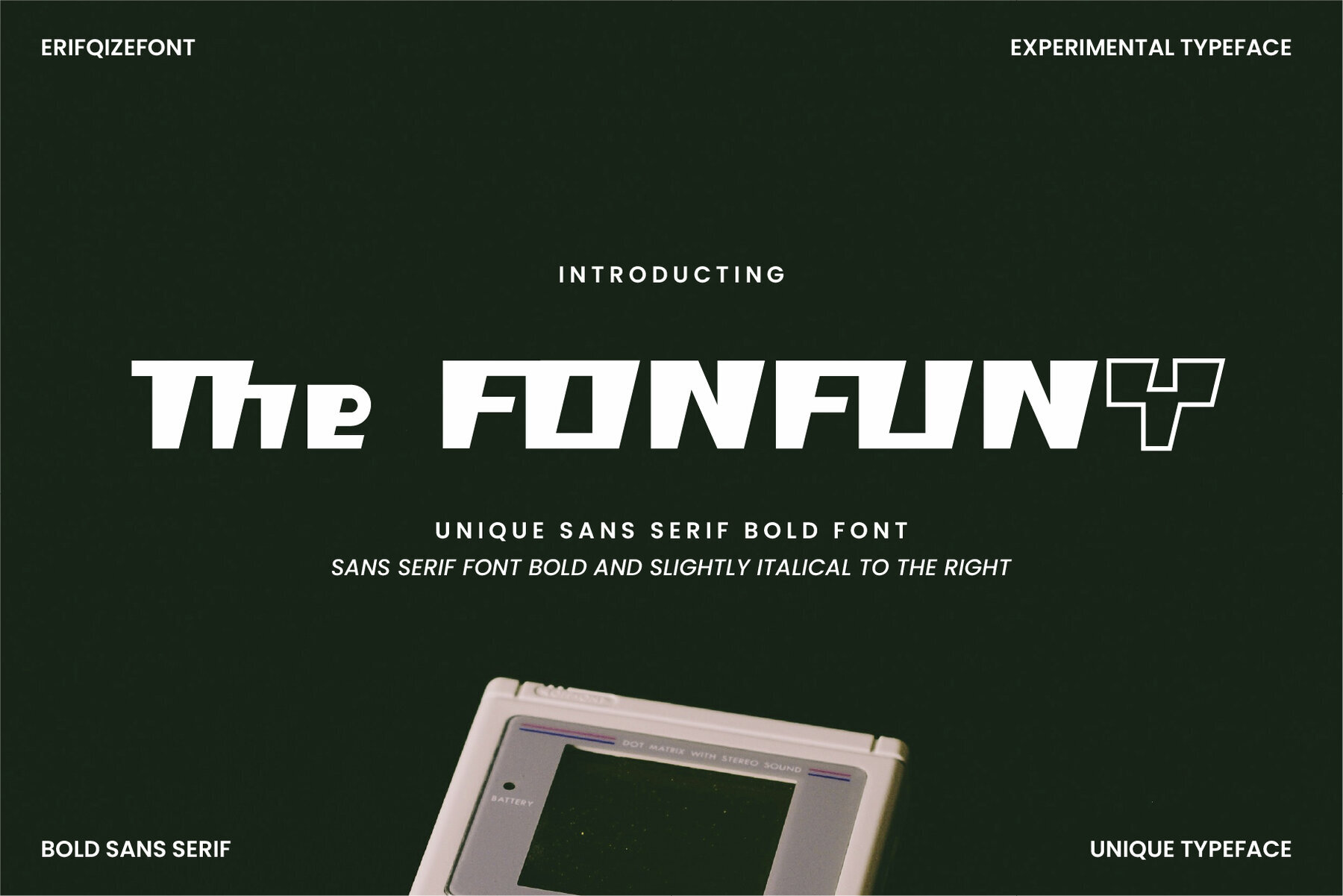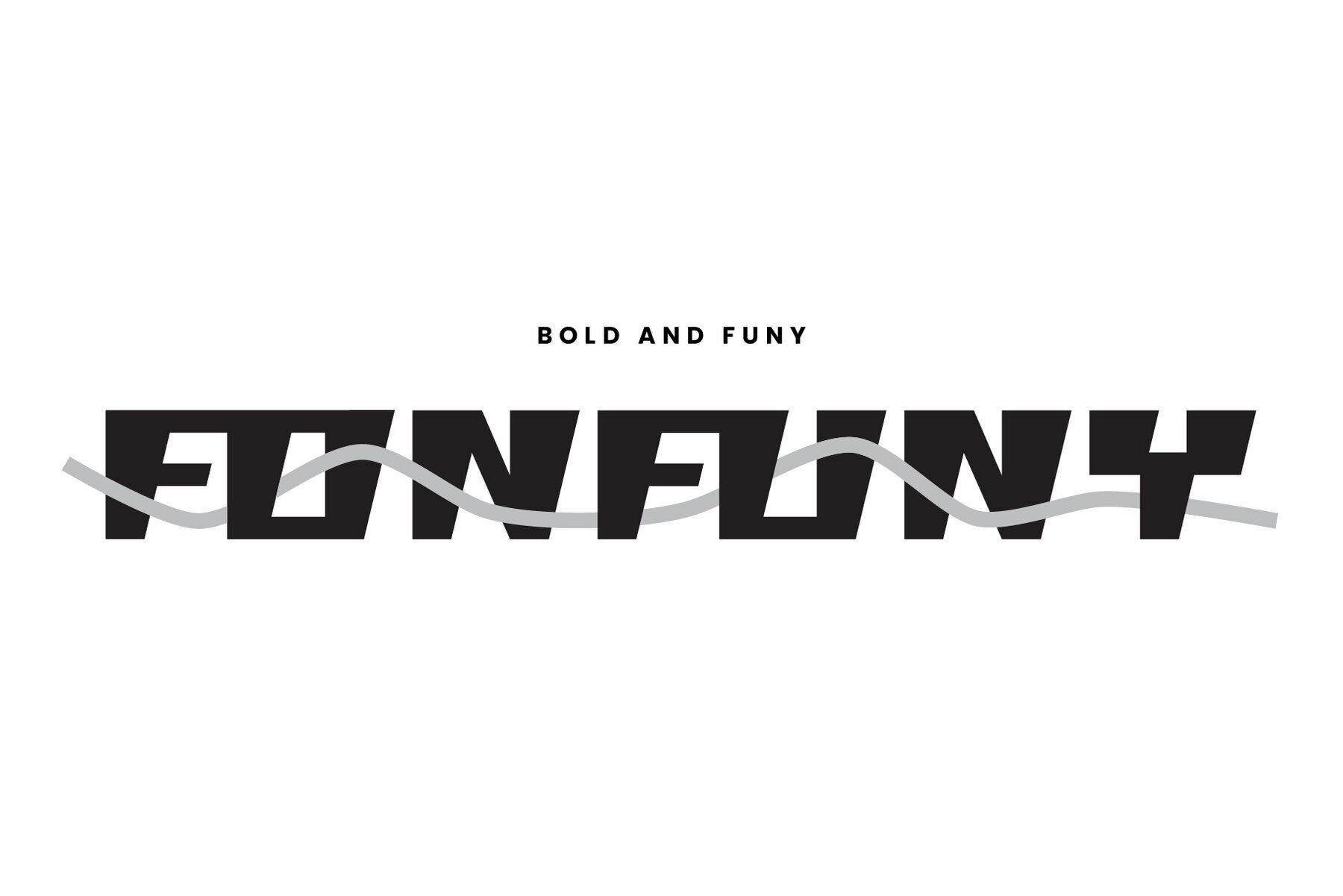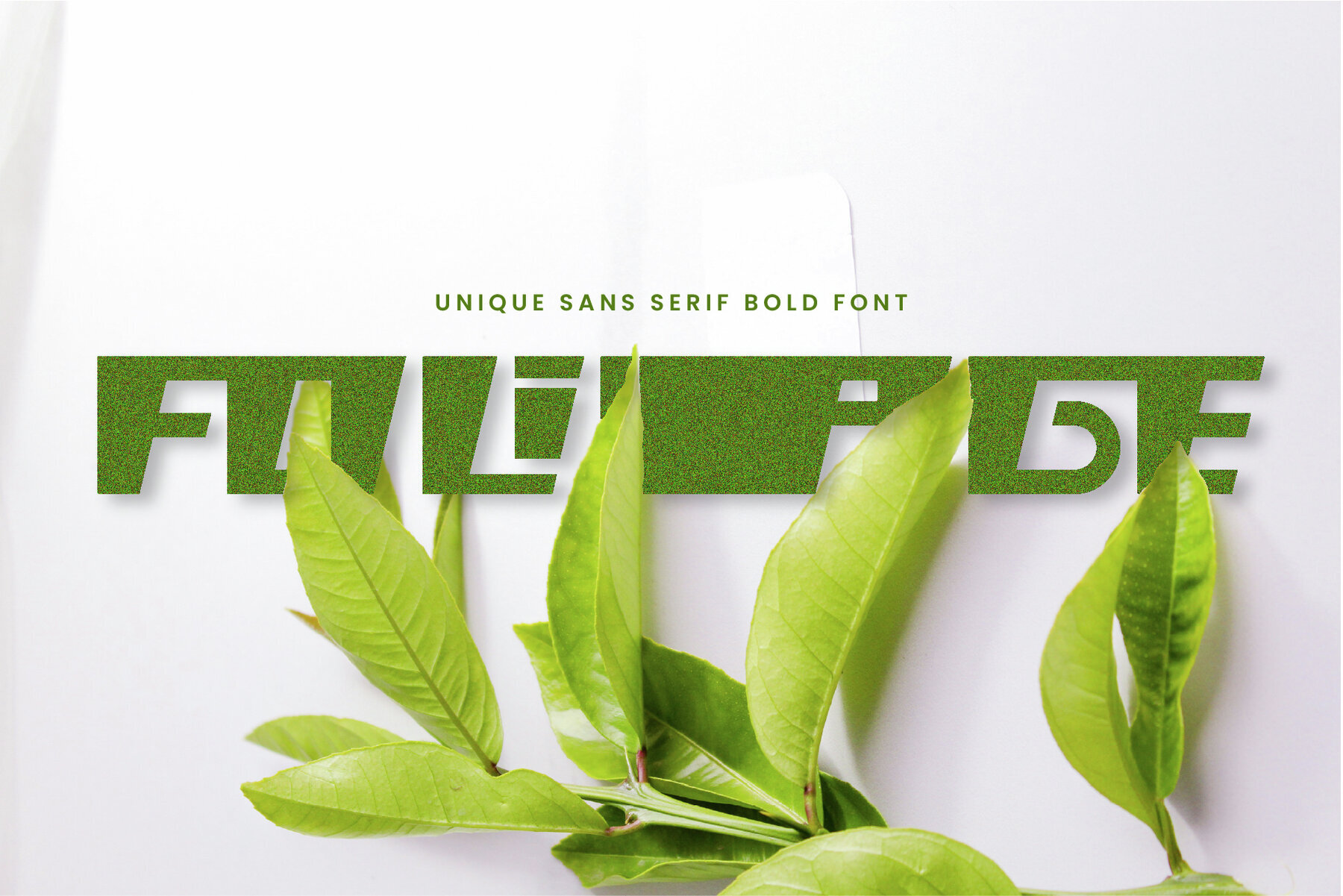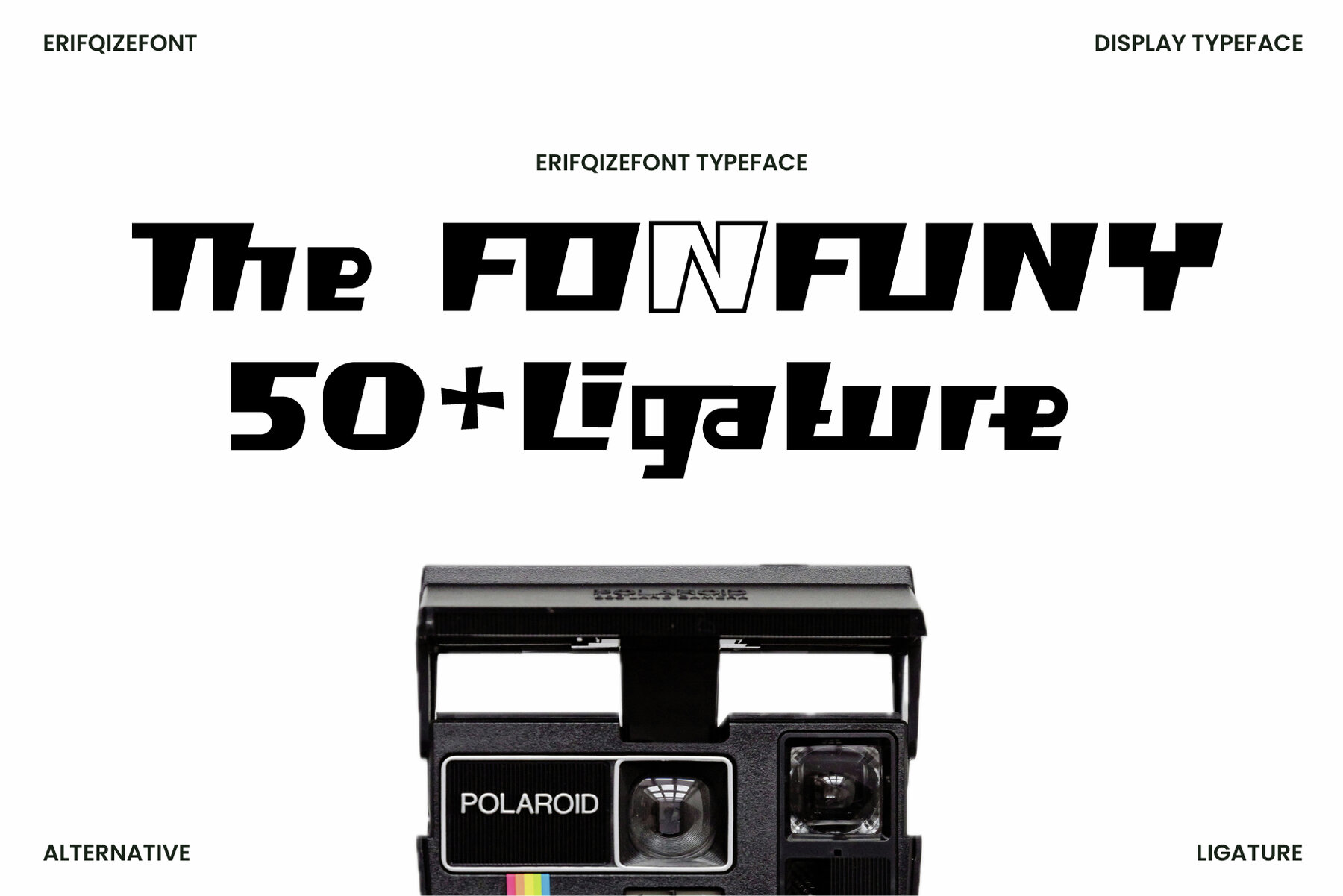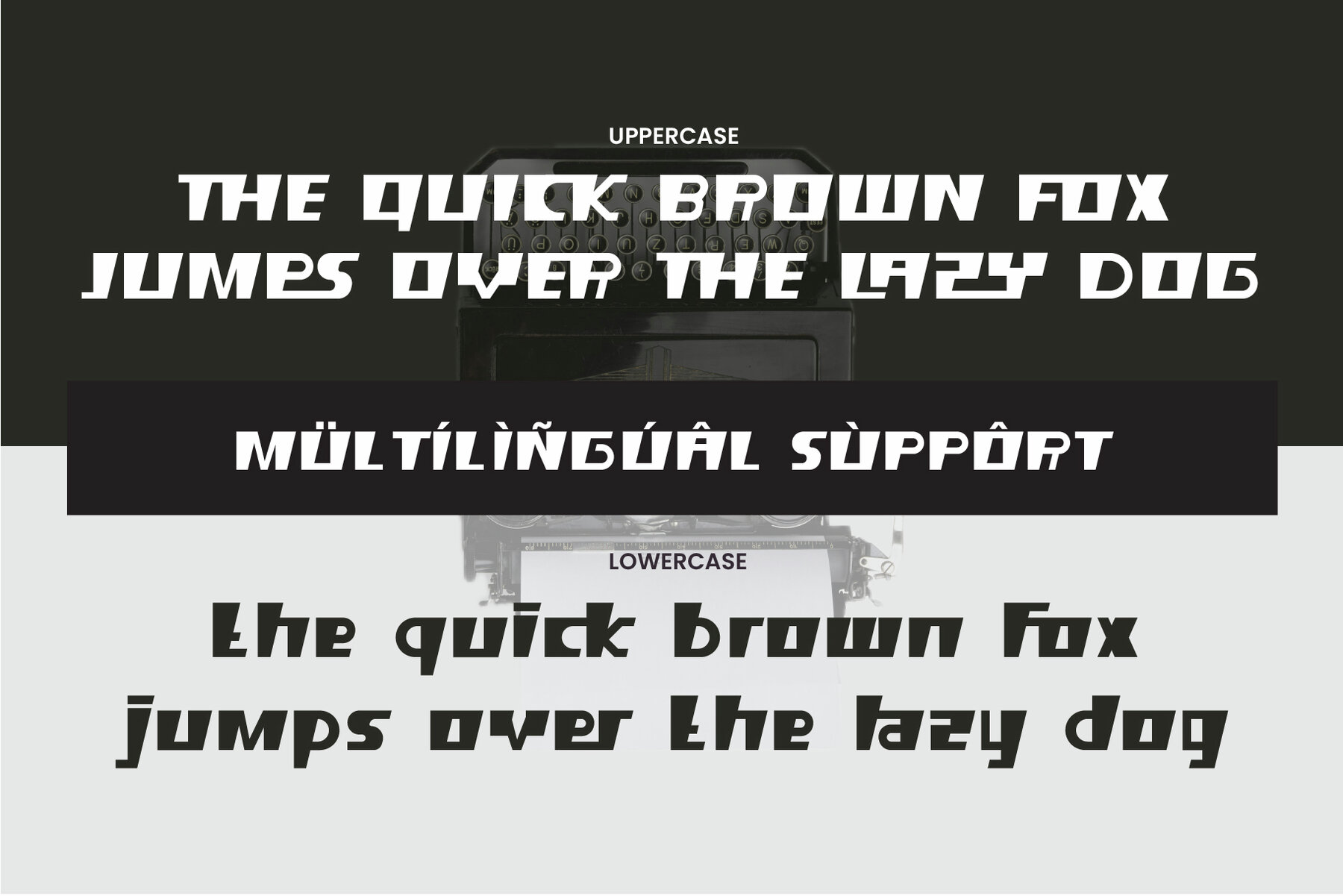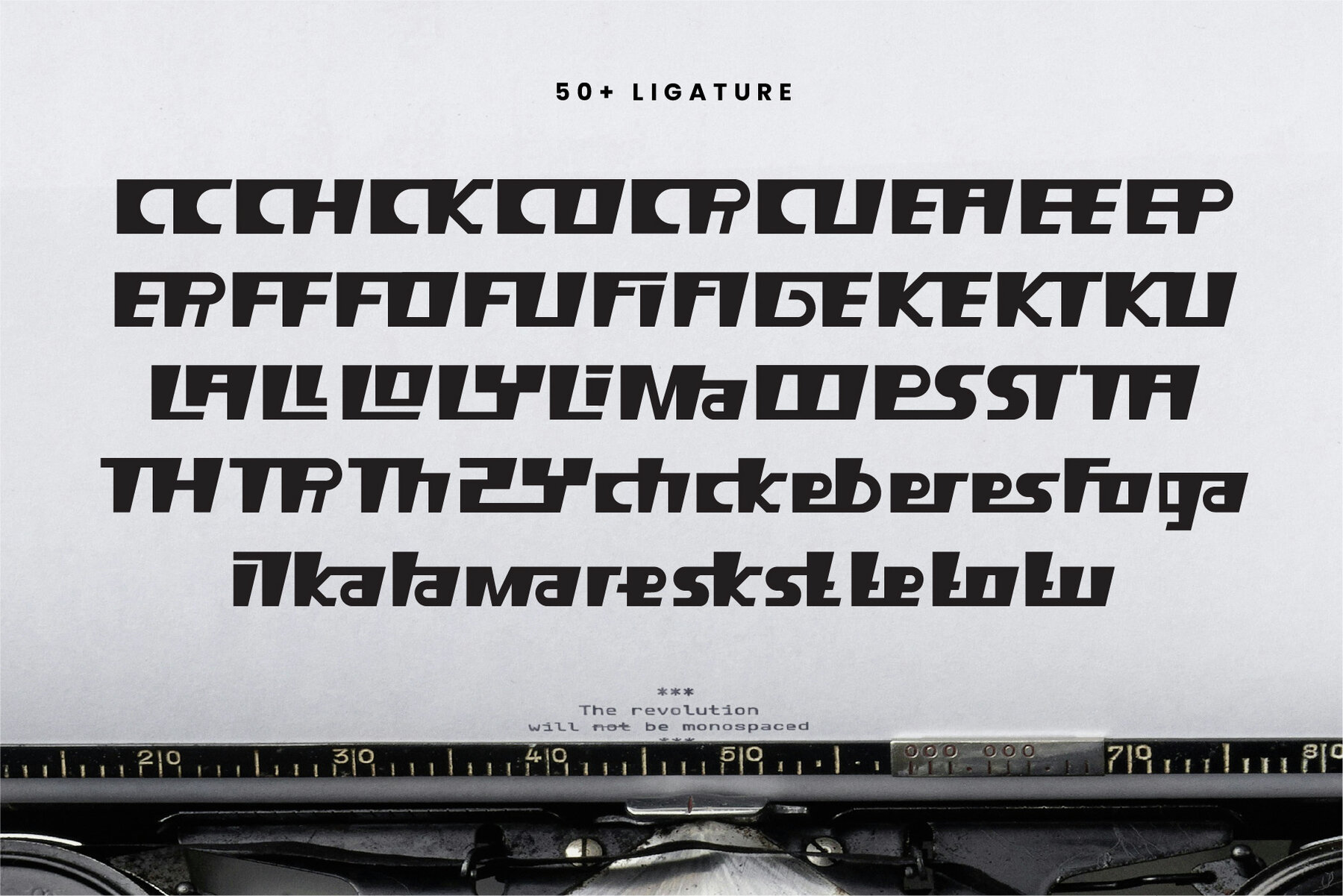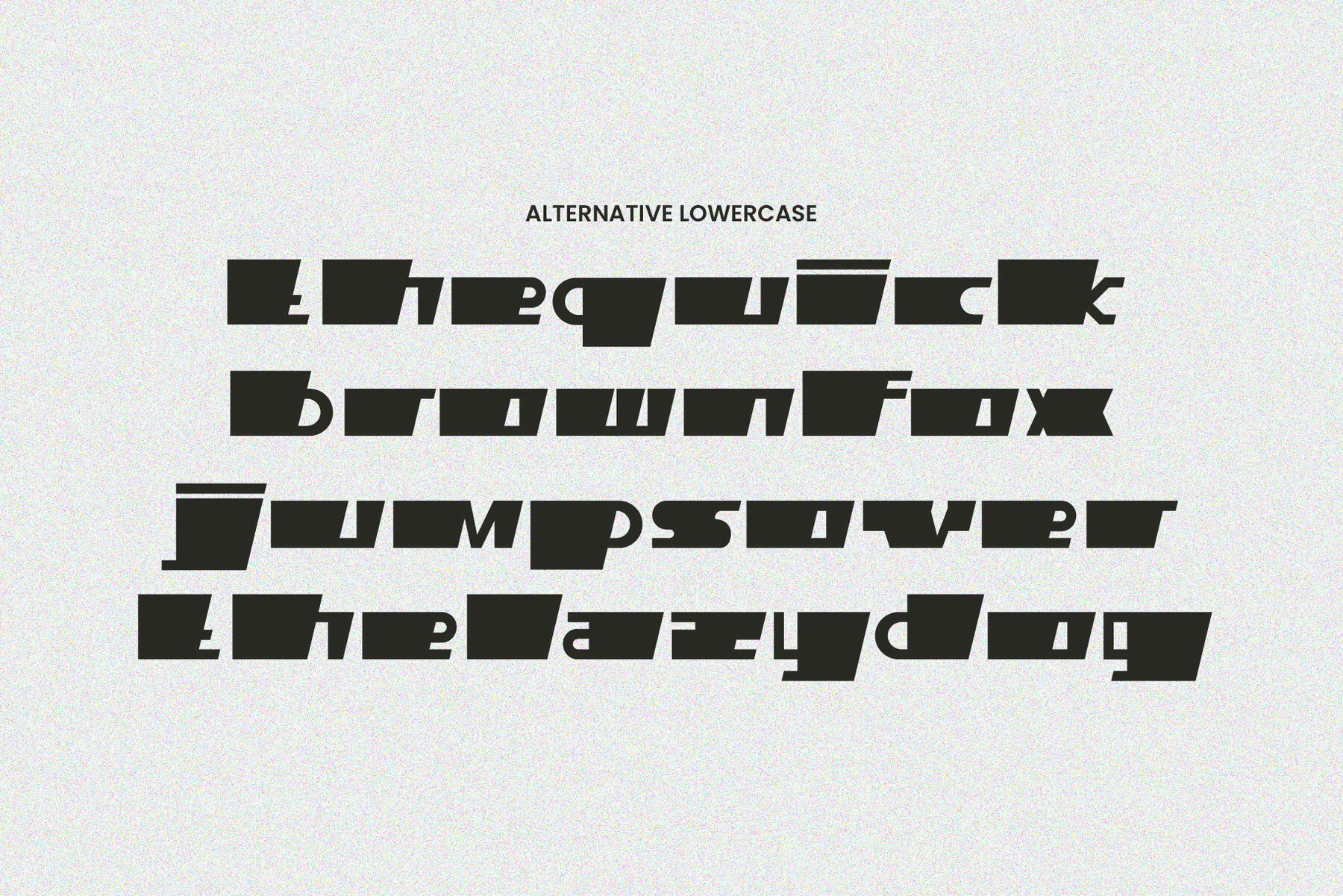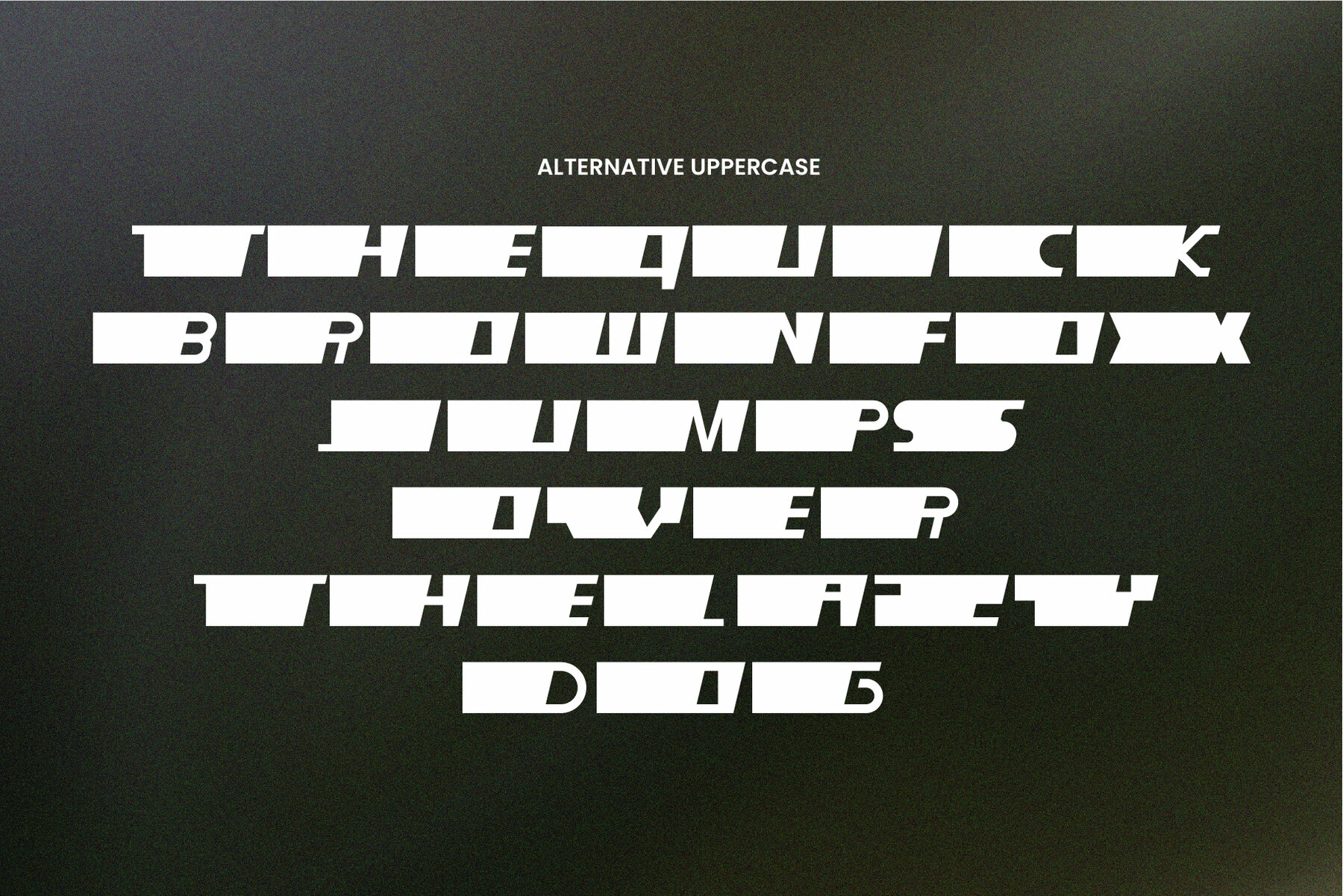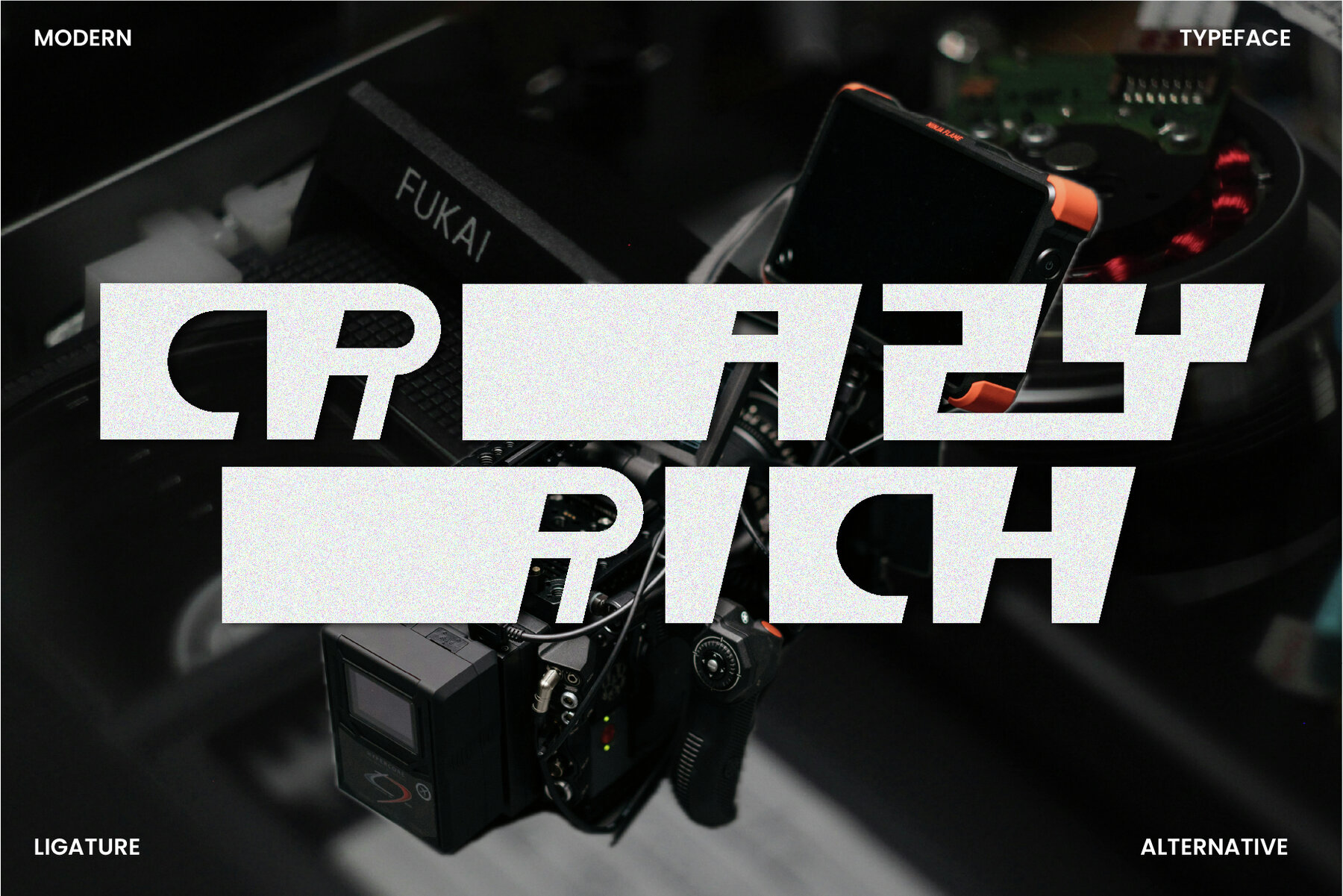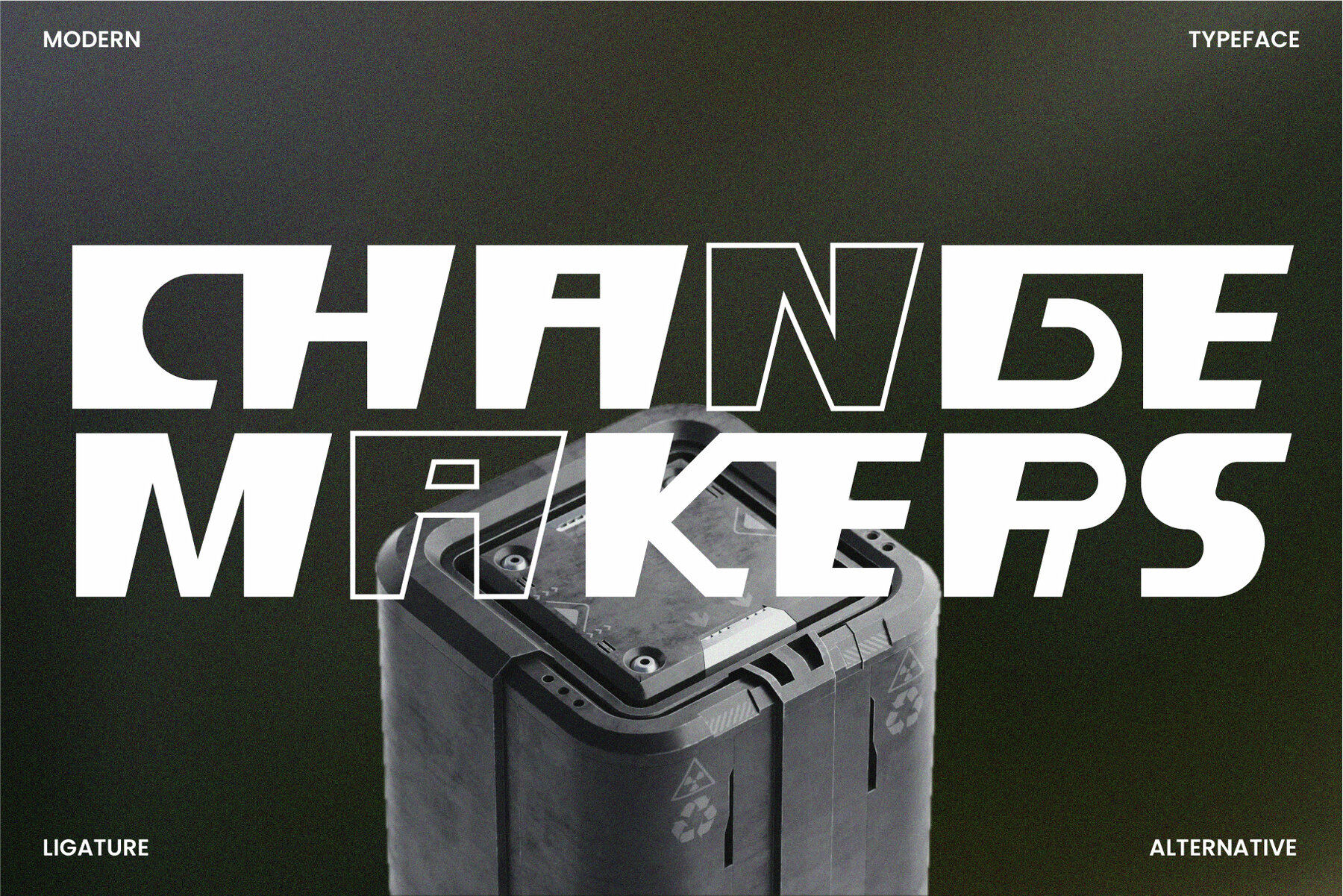
The Fontfuny
Erifqizefont stands out as a bold sans-serif typeface with a modern flair. Its unique rightward italic slant injects energy and dynamism into every project, offering a perfect blend of personality and legibility. With over 50 ligatures and alternates, this typeface provides creative flexibility for outstanding typography. Meticulously crafted uppercase and lowercase letters ensure readability while maintaining a bold and assertive presence. Ideal for branding, headlines, and posters, Erifqizefont commands attention with its impactful style. This creation from The Fontfuny Foundry offers a bold statement, perfect for any project seeking a strong visual identity.Erifqizefont Bold Sans-Serif Typeface